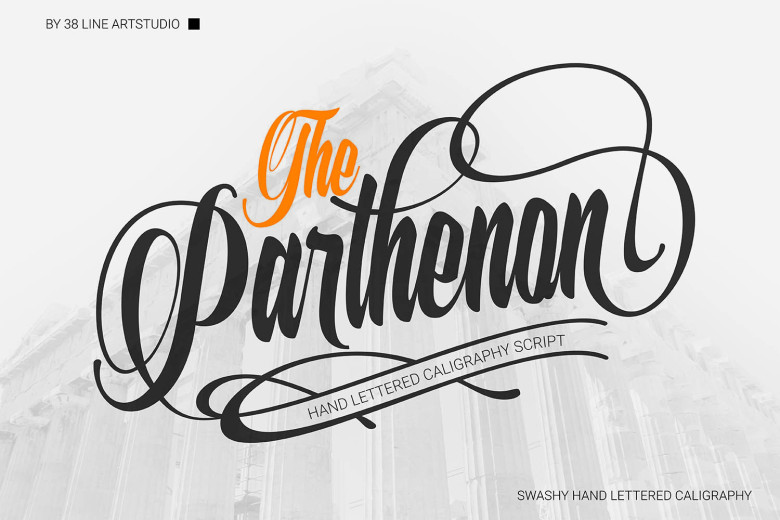
The Parthenon Script Font
Let me introduce you the font ”The Parthenon Font” A hand lettered caligraphy script. The Parthenon is a calligraphy script with a lettering style. It includes 6 to 7 alternates which gives you the opportunity to create amazing lettering styles. Mix and match the alternates to create an unique, playful designs that tempt your eyesight from all points of view.